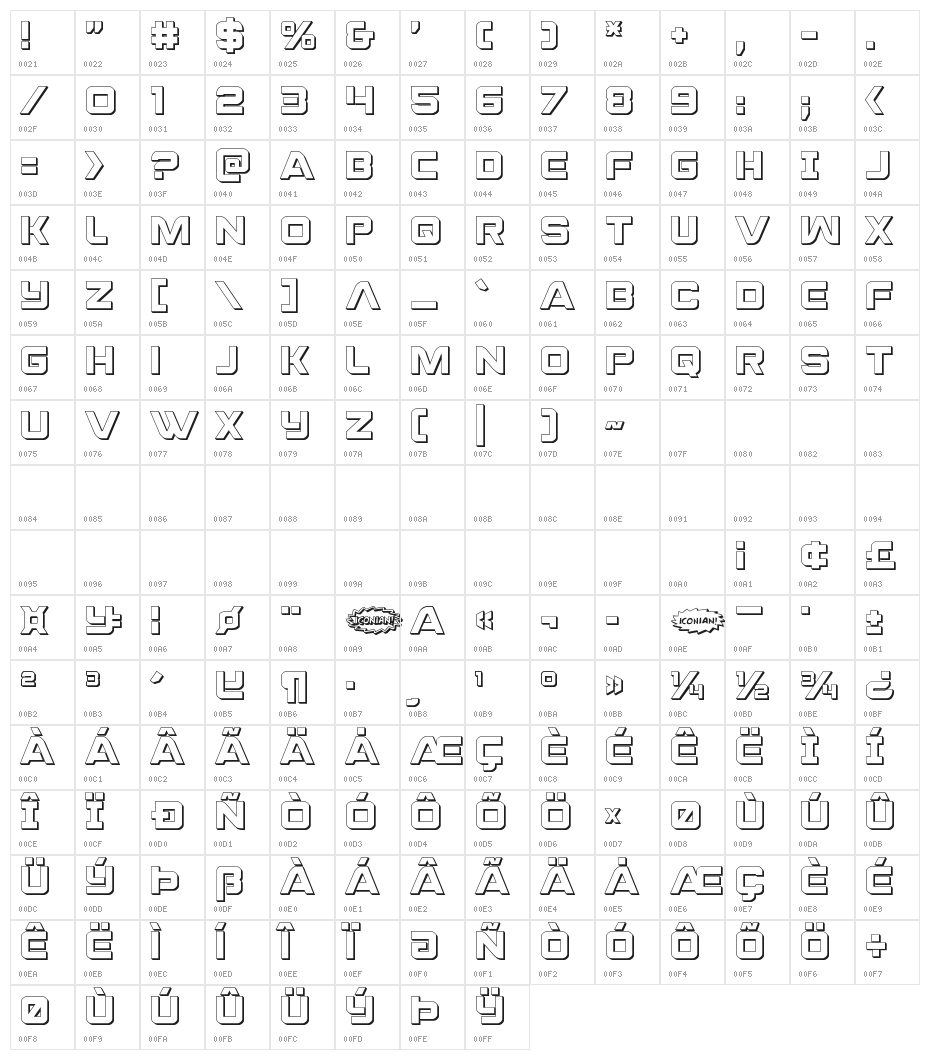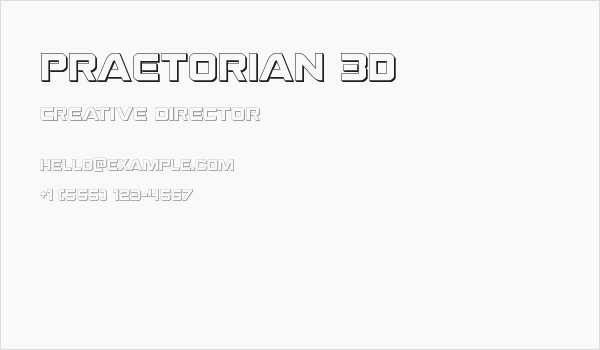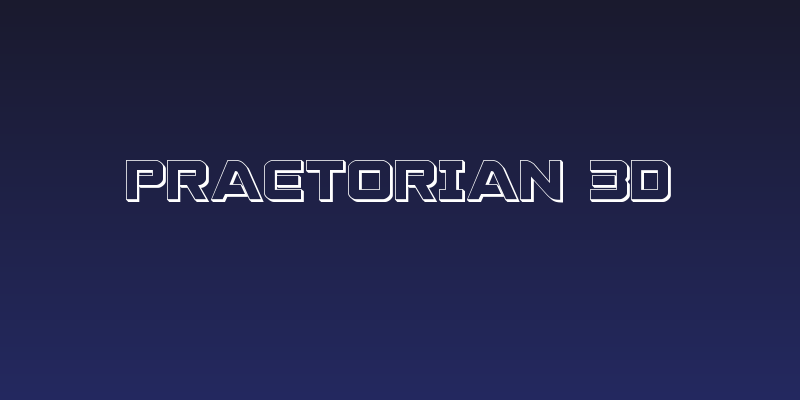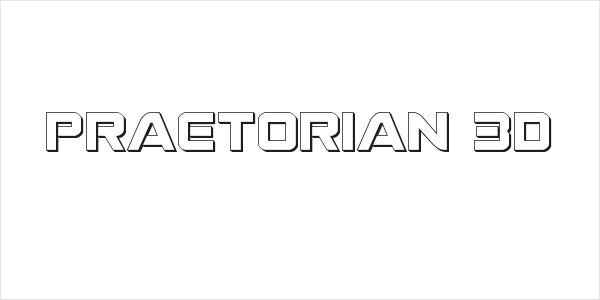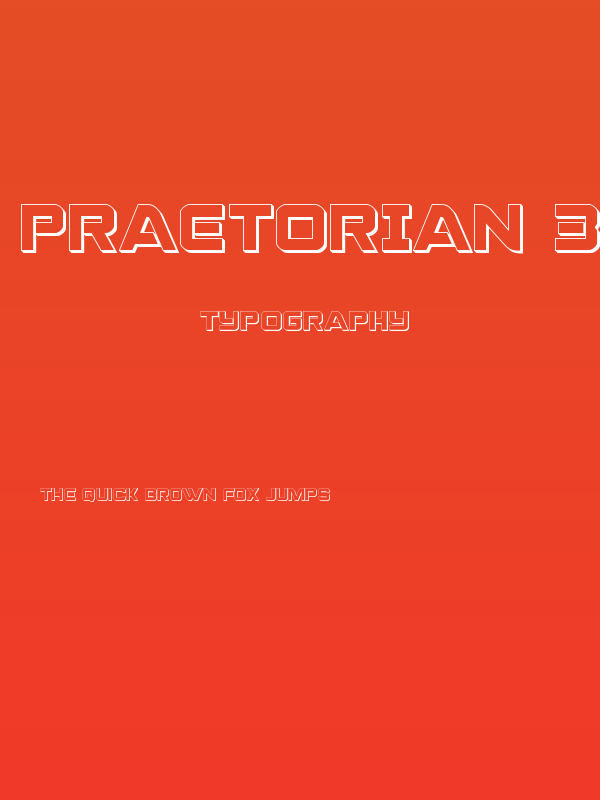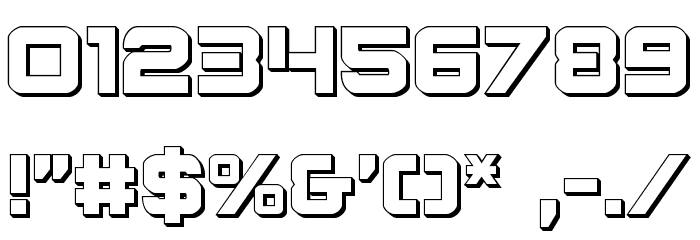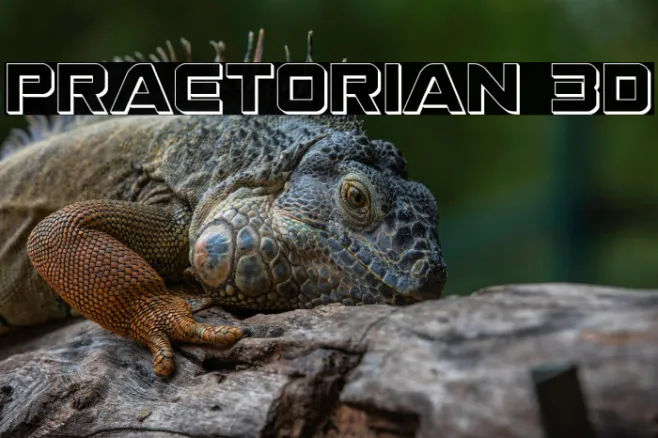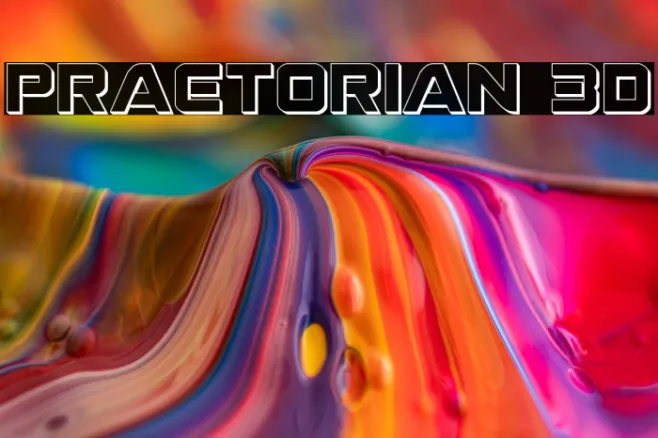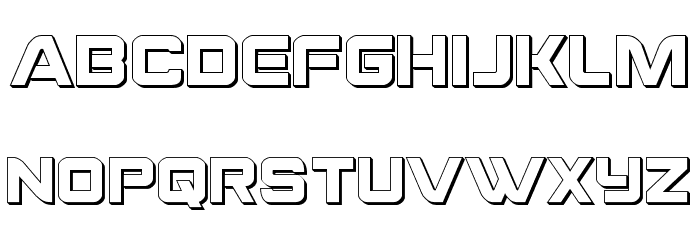
Praetorian 3D Font
Praetorian 3D Description
This font features a bold, three-dimensional design with a distinct outline that gives each character a striking, futuristic appearance. The uppercase letters are geometric and angular, with sharp edges and clean lines that create a sense of depth and dimension. The numbers and special characters follow the same design principles, ensuring consistency across all glyphs. The font's style is reminiscent of digital or sci-fi themes, making it ideal for projects that require a modern and technological aesthetic. Its unique 3D effect is achieved through a clever use of line work, which adds a layer of complexity and visual interest to the text.